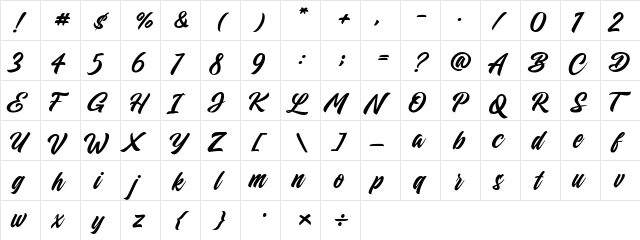
Coolkids - Script Typeface Regular
Design Context for Coolkids - Script Typeface Typeface
Coolkids - Script Typeface trades formality for fun, with bouncy, characterful letterforms that bring warmth and energy to any project.
Well-suited to food and beverage brands with personality, educational materials, and fun-forward identities.
Font Pairing: Pairs well with a rounded or humanist sans for body copy, maintaining the friendly tone without relying on Coolkids - Script Typeface to carry extended reading.
Pro Tip: Use Coolkids - Script Typeface at larger display sizes where its expressive character can land. Pair with a clean, simple sans for body copy to maintain readability.